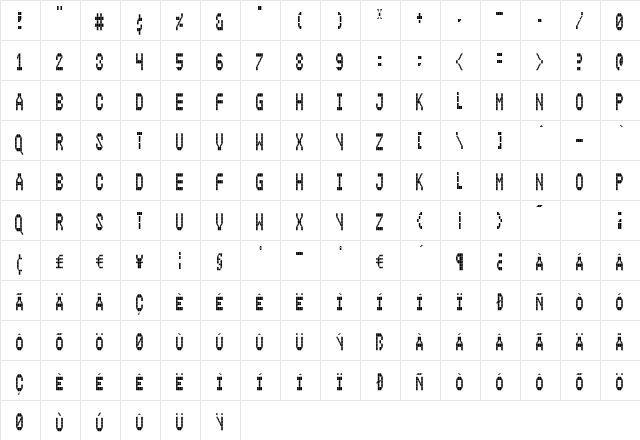
TerminusRegular Regular
Design Context for TerminusRegular Typeface
TerminusRegular offers clean, dependable letterforms without strong stylistic allegiance, making it a practical choice for designers who need flexibility.